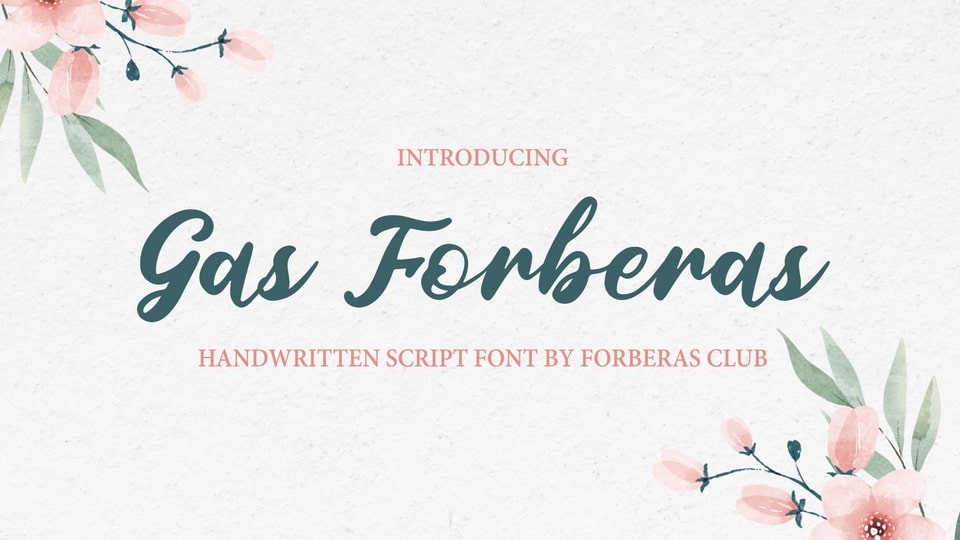
Download Gas Forberas font, a beautiful, well balanced and vintage styled script typeface. It is defined by smooth curves and is perfect for fashion branding or editorial designs.